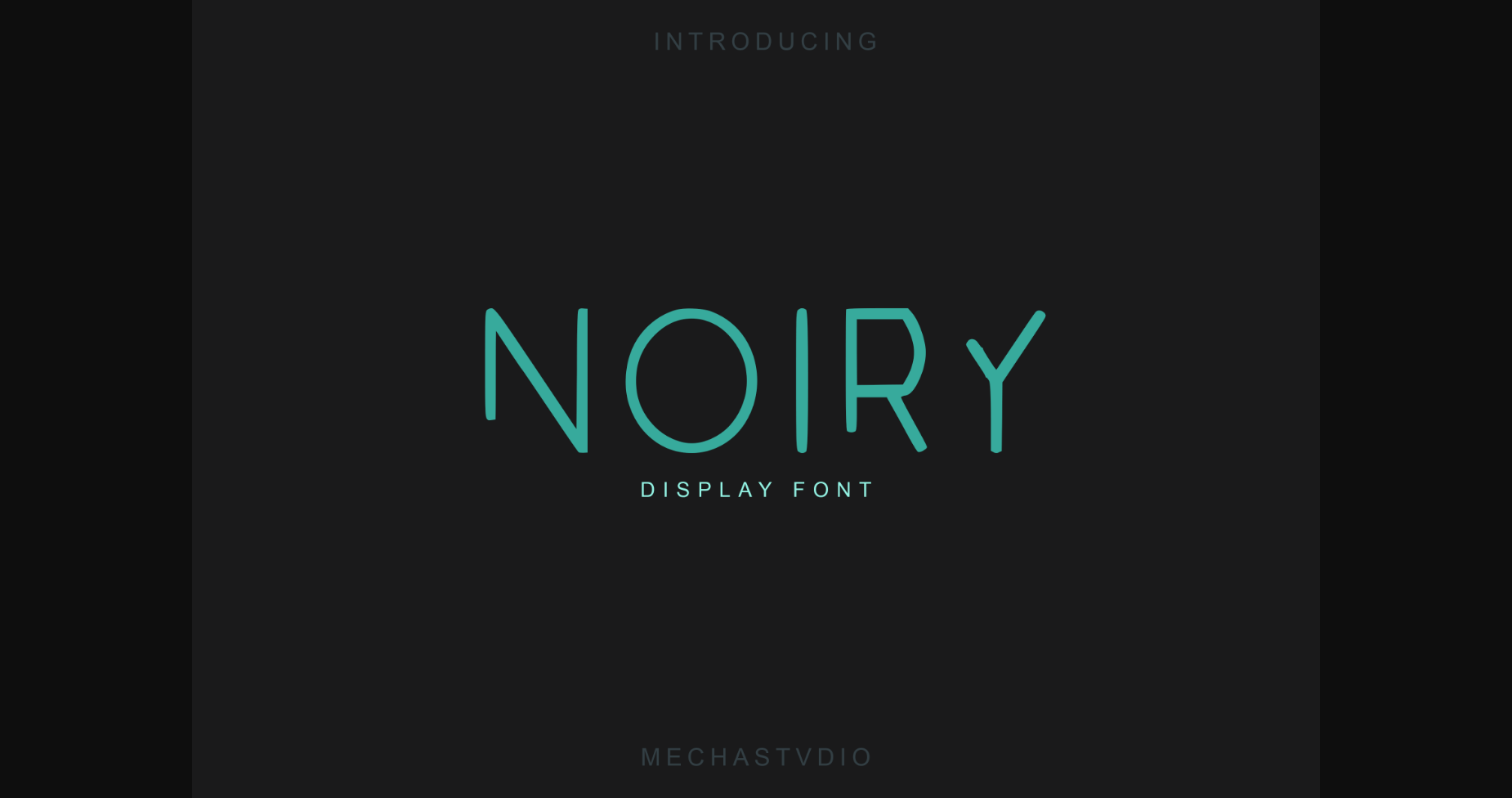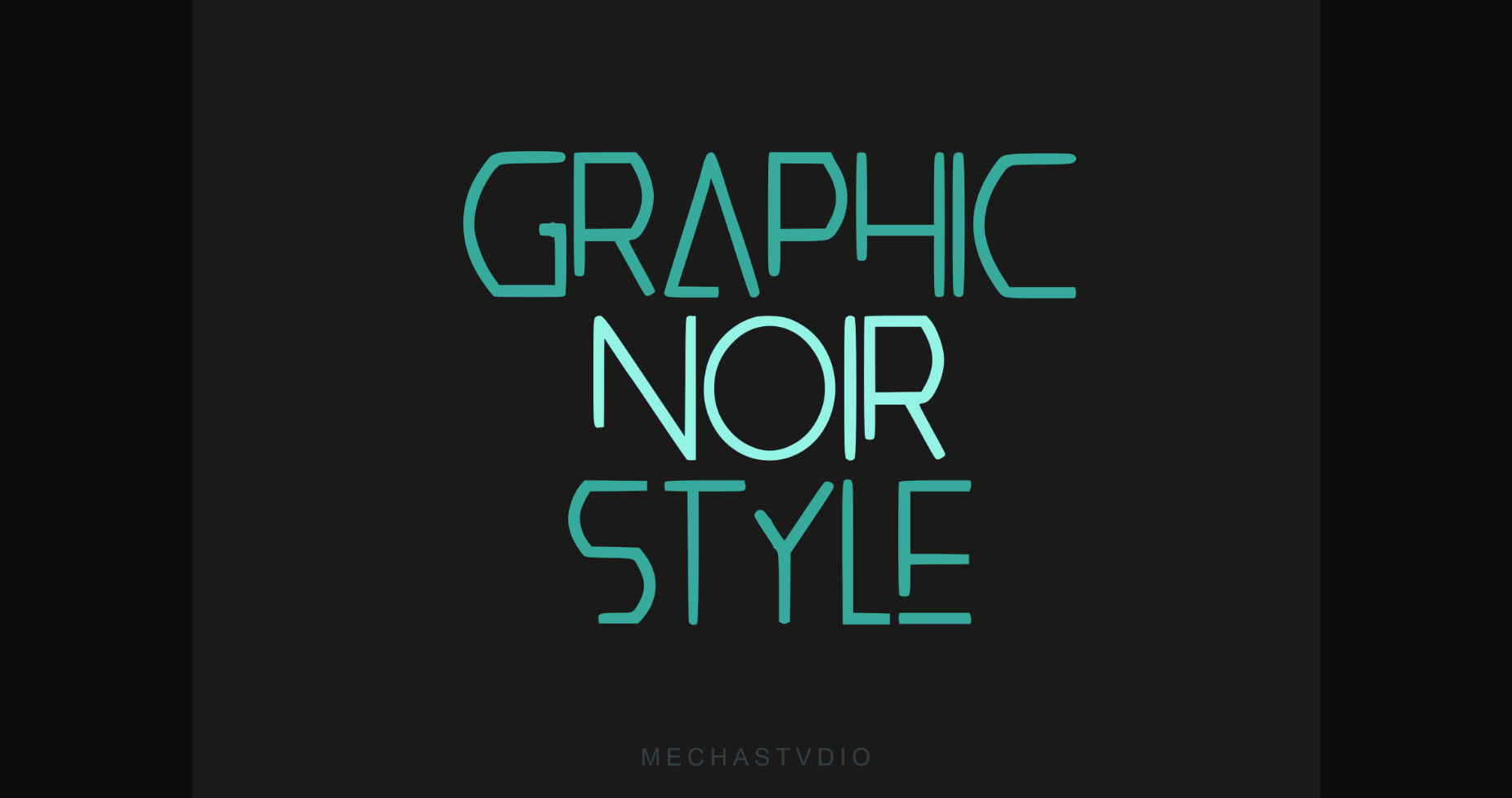
Noiry is a simple, clean, and minimalist sans serif font. Its unique style is perfect for all your projects as it has the potential to transform them into a true standout.